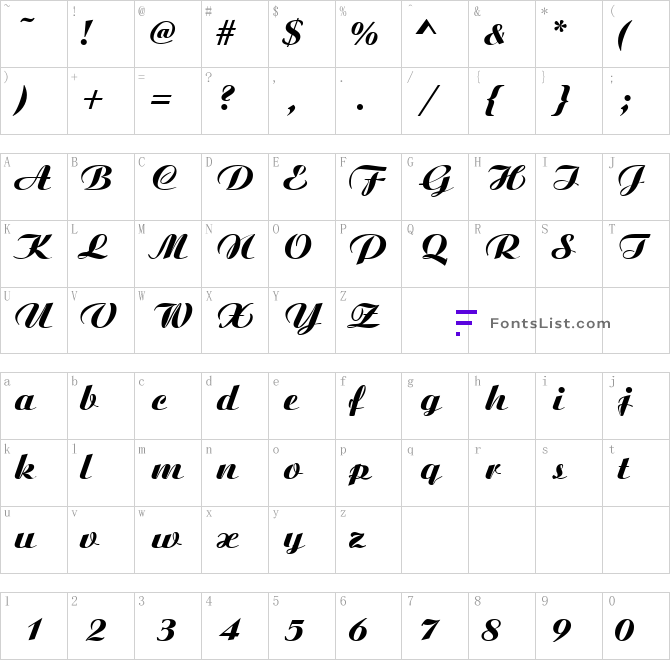
- Font Name:Aristocrat
Aristocrat-Regular.ttf is a very beautiful artistic font, Aristocrat-Regular.ttf is widely used in the design and printing of various books and pictures,Aristocrat-Regular.ttf has a strong visual impact,Aristocrat-Regular.ttf is a commonly used font in newspapers, magazines and books, and is used in posters, e-commerce Poster design, store design, logo design, font design and other fields.Aristocrat-Regular.